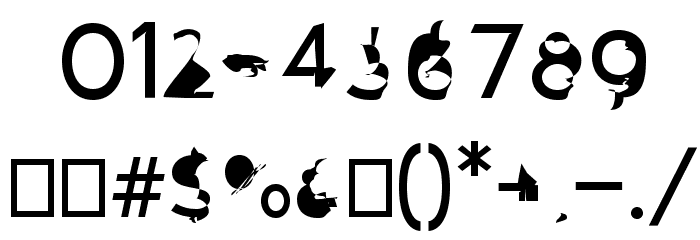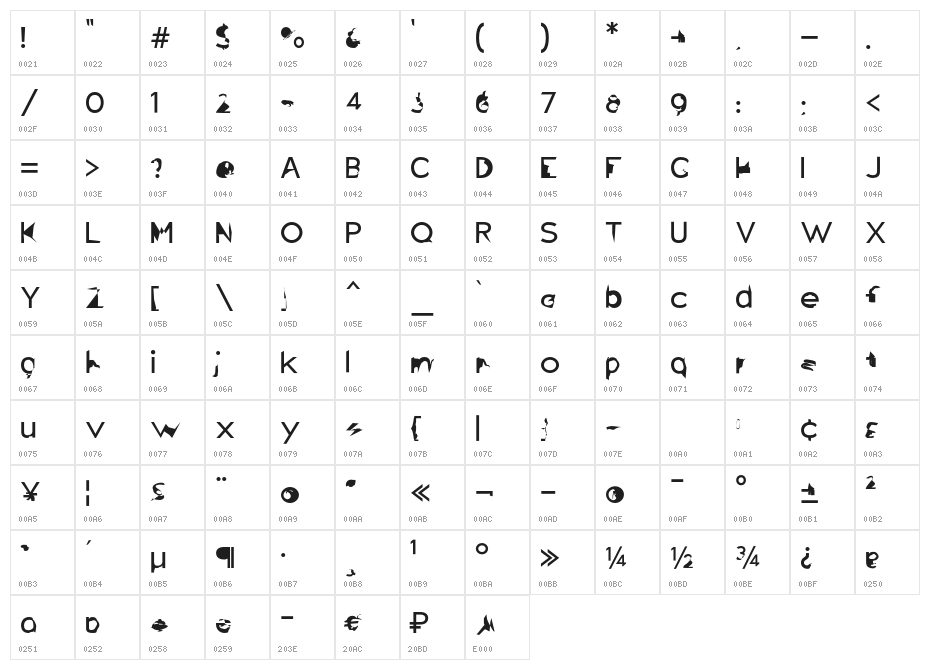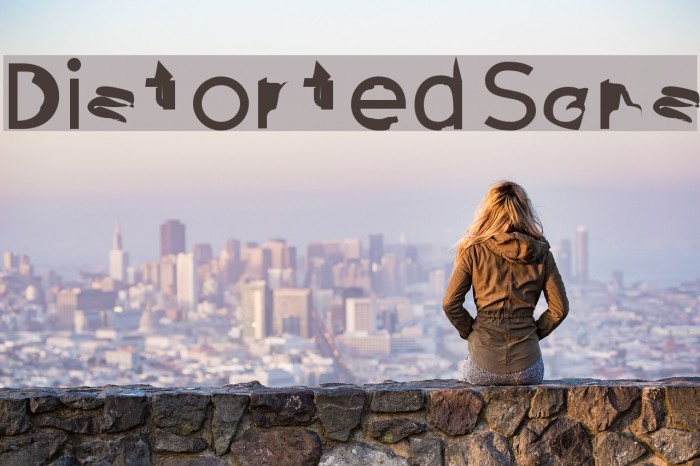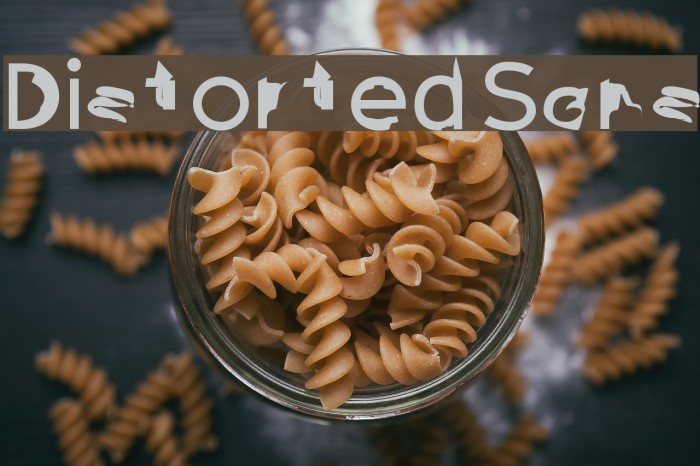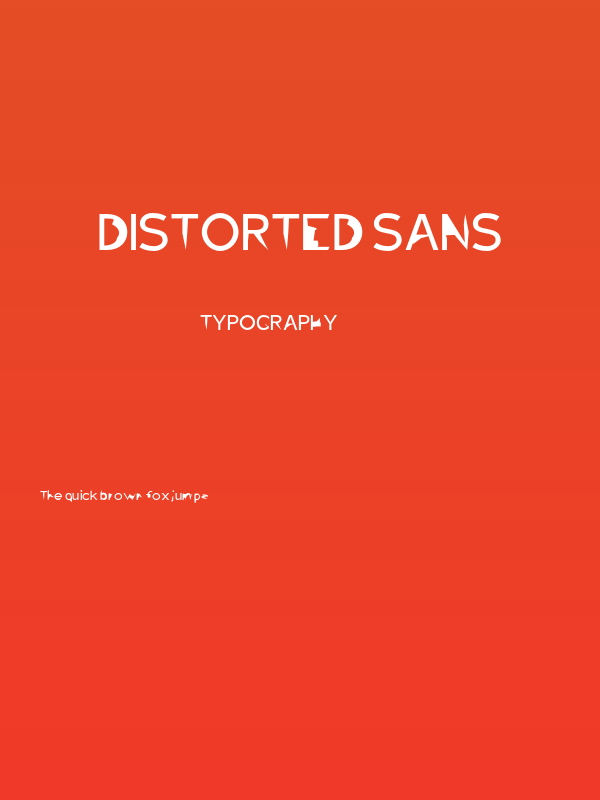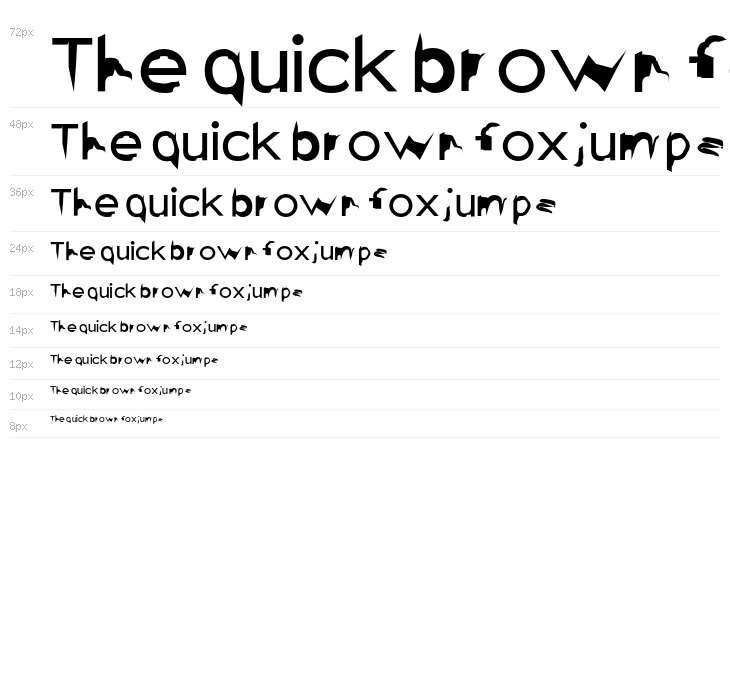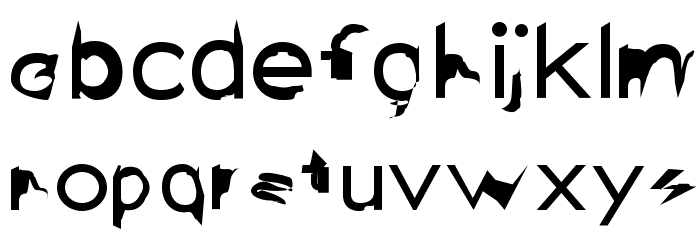
Distorted Sans Font
Distorted Sans Description
This font presents a unique, distorted sans-serif style that combines traditional letterforms with unexpected cuts and angles, creating a visually striking and modern appearance. The uppercase and lowercase letters maintain a consistent height, but the distortion adds an element of surprise and creativity. The numbers and special characters follow the same design principle, ensuring a cohesive look across all glyphs. The font's bold strokes and irregular shapes make it stand out, while maintaining legibility. Its unconventional design is perfect for projects that require a bold statement or a modern, edgy aesthetic.
| Proposed Projects | Ideal for branding, posters, album covers, and any project needing a modern, edgy look. |